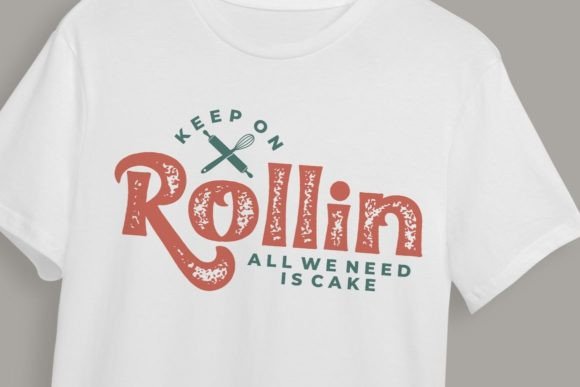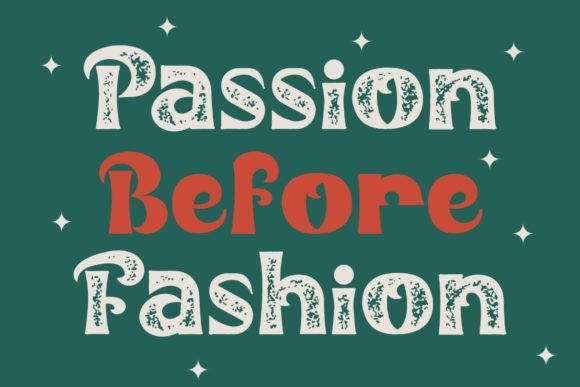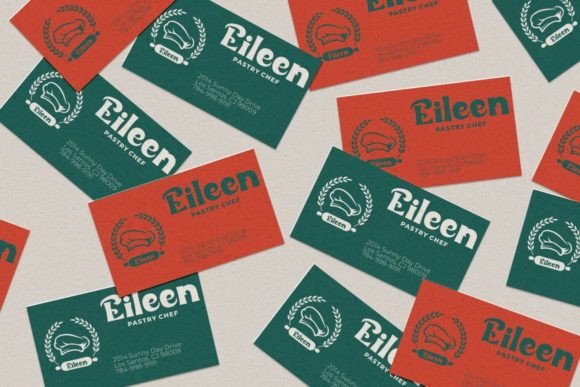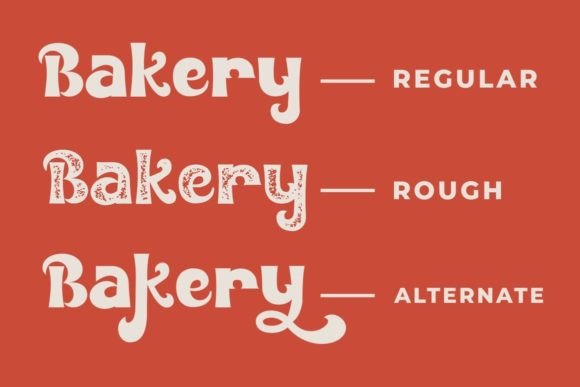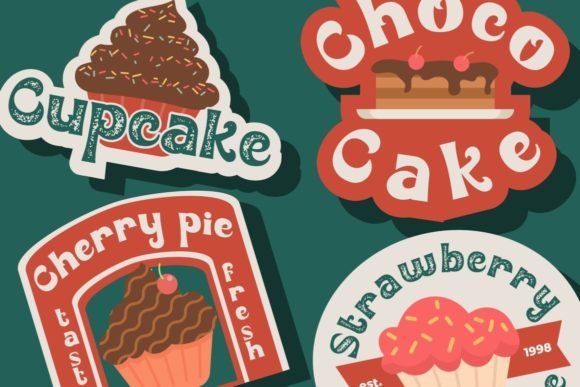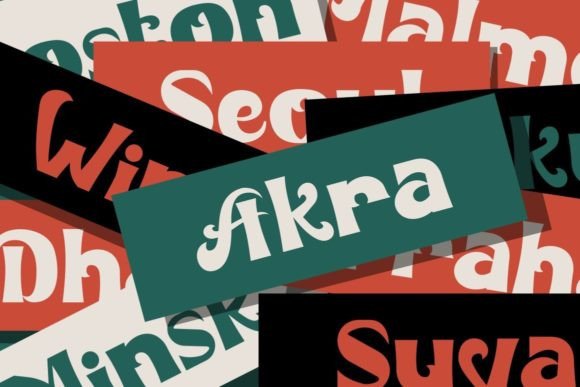
Introducing Elastic Heart Font: The Ultimate Display Font for Vintage-Inspired Designs
Are you a designer or crafter looking for a unique and versatile font to add a touch of vintage charm to your projects? Look no further than Elastic Heart Font, a stunning display font that embodies the spirit of the 1960s and 1970s. With its bold, groovy, and clean design, Elastic Heart is the perfect choice for creating layout designs that evoke a sense of nostalgia and retro flair.
What Makes Elastic Heart Font So Special?
Elastic Heart Font is a display vintage font that boasts a range of impressive features, including:
- Beautiful Ligatures: Elastic Heart Font features tons of beautiful ligatures that add a touch of elegance and sophistication to your designs.
- Tons of Alternative Glyphs: With Elastic Heart Font, you’ll have access to a wide range of alternative glyphs, allowing you to experiment with different styles and variations.
- Multilingual Support: This font supports multiple languages, making it a great choice for designers and crafters who work with international clients or projects.
The Benefits of Using Elastic Heart Font
So why choose Elastic Heart Font for your design projects? Here are just a few benefits of using this amazing font:
- Versatility: Elastic Heart Font is a very versatile font that works great in both large and small sizes, making it perfect for a wide range of design applications.
- Vintage Flair: With its bold, groovy, and clean design, Elastic Heart Font is the perfect choice for creating vintage-inspired designs that evoke a sense of nostalgia and retro charm.
Design Applications for Elastic Heart Font
Elastic Heart Font is perfect for a wide range of design applications, including:
- 60s and 70s Design Projects: With its vintage flair and retro charm, Elastic Heart Font is the perfect choice for creating design projects that evoke the spirit of the 1960s and 1970s.
- Poster Design: Elastic Heart Font is a great choice for poster design, thanks to its bold and eye-catching design.
- Logos and Branding: This font is also perfect for creating logos and branding materials that require a unique and memorable design.
- Digital and Print Media: Elastic Heart Font can be used in a wide range of digital and print media, including magazines, newspapers, and websites.
Tips for Using Elastic Heart Font
Here are a few tips for using Elastic Heart Font in your design projects:
- Experiment with Different Sizes: Elastic Heart Font works great in both large and small sizes, so don’t be afraid to experiment with different sizes to find the one that works best for your design.
- Play with Ligatures and Glyphs: With its tons of beautiful ligatures and alternative glyphs, Elastic Heart Font offers endless possibilities for creative experimentation.
- Pair with Other Fonts: Elastic Heart Font can be paired with other fonts to create a unique and memorable design.